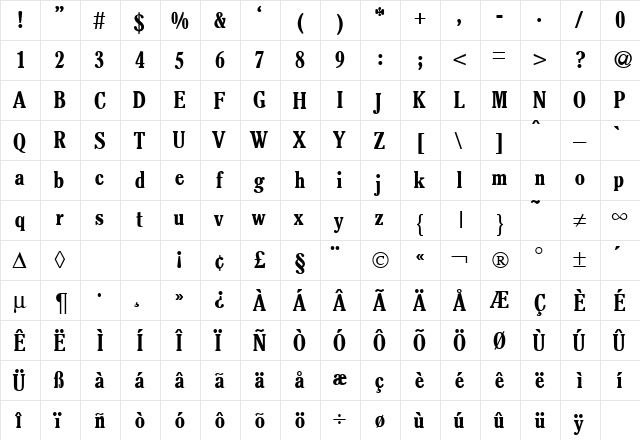
SorbetCondensed Bold
Design Context for SorbetCondensed Typeface
SorbetCondensed offers clean, dependable letterforms without strong stylistic allegiance, making it a practical choice for designers who need flexibility. Its bold stroke weight gives it real presence on the page. The condensed width makes it efficient for tight spaces without sacrificing legibility.